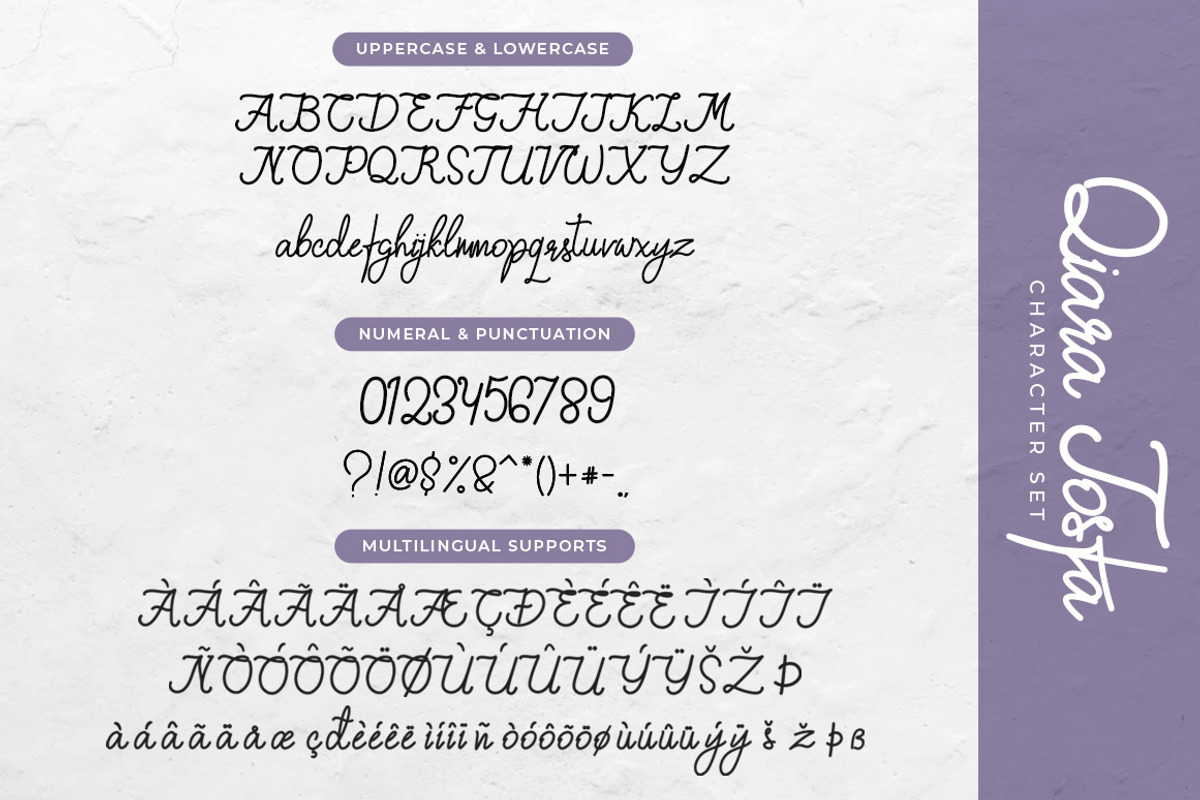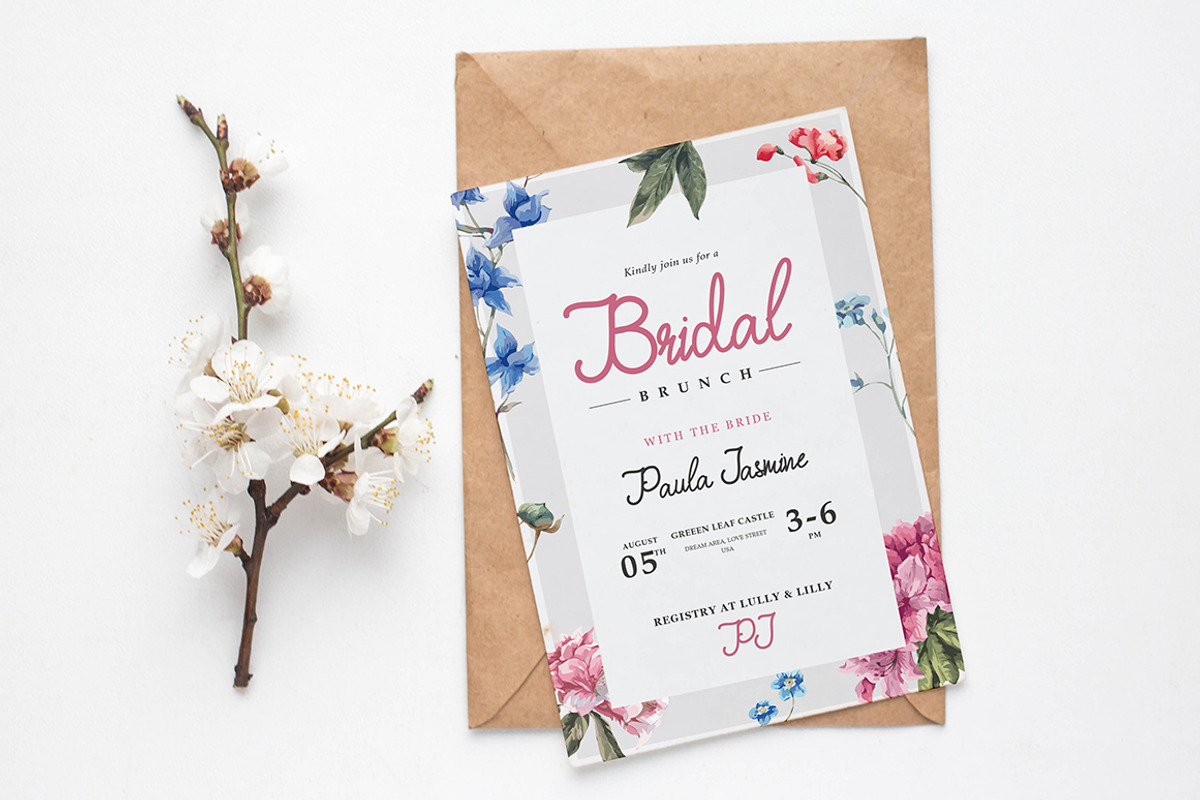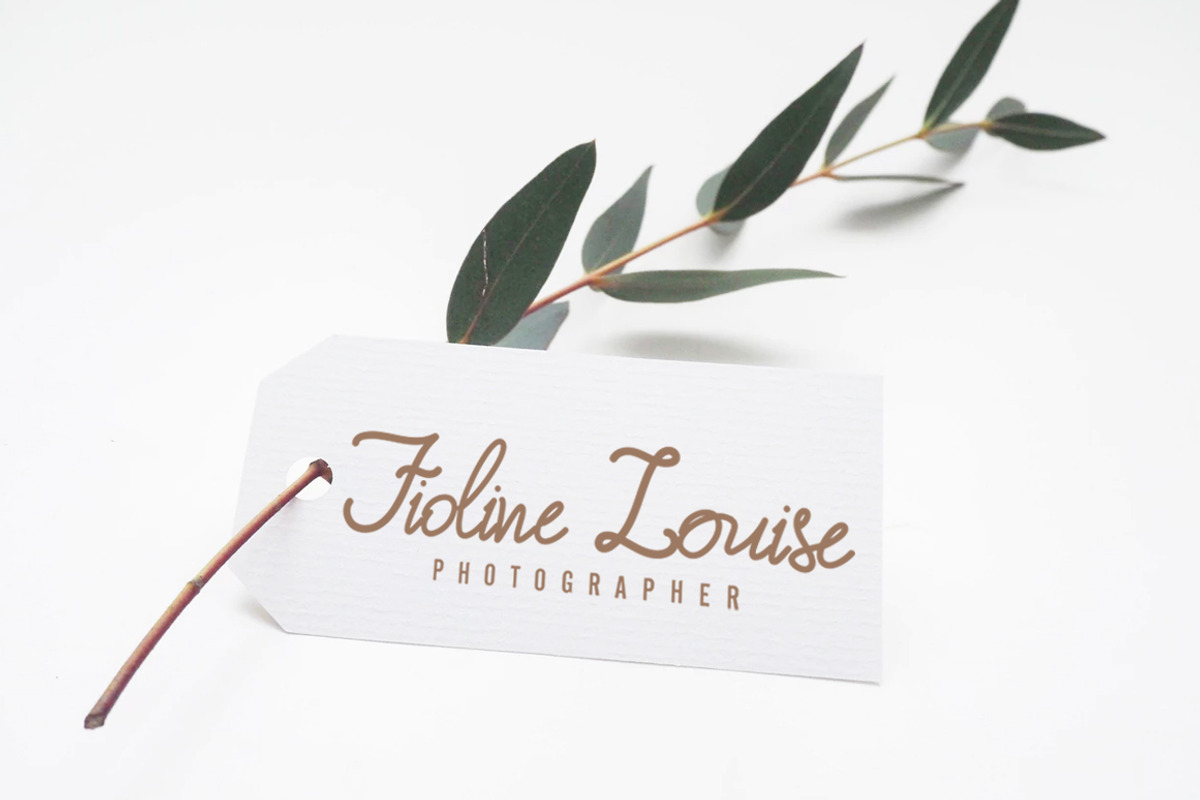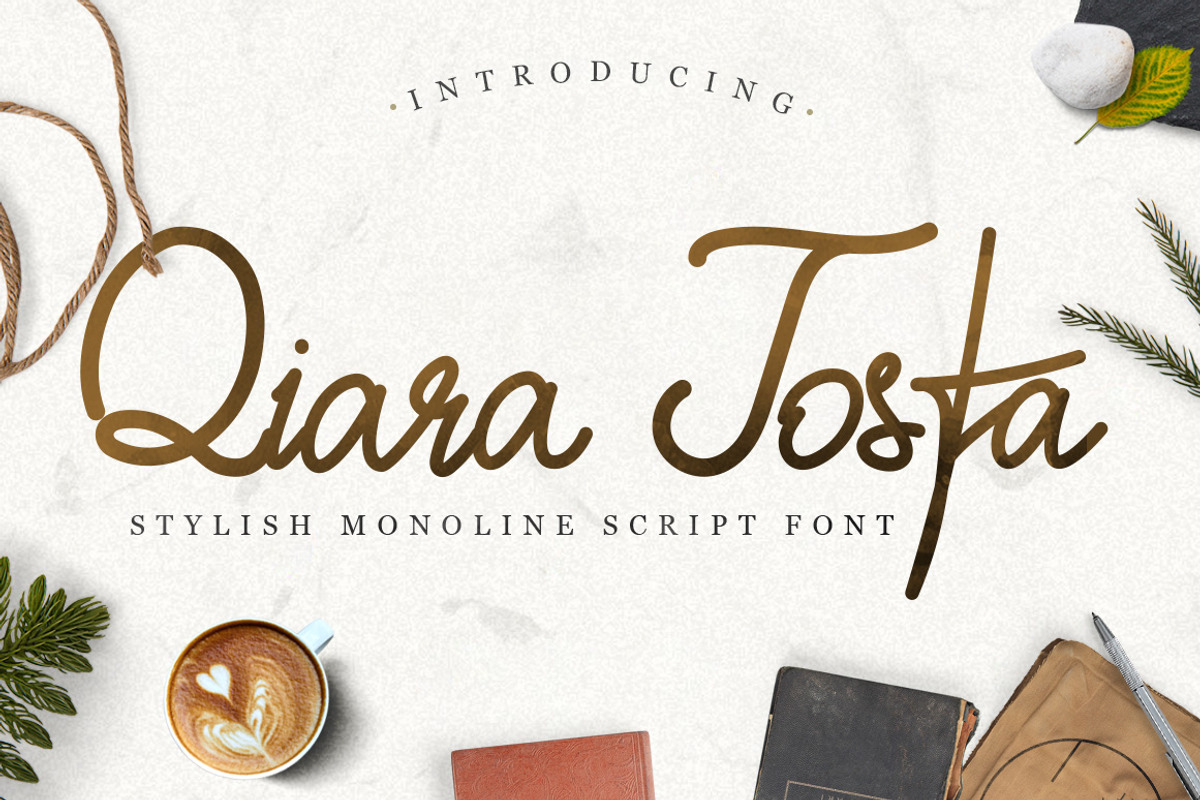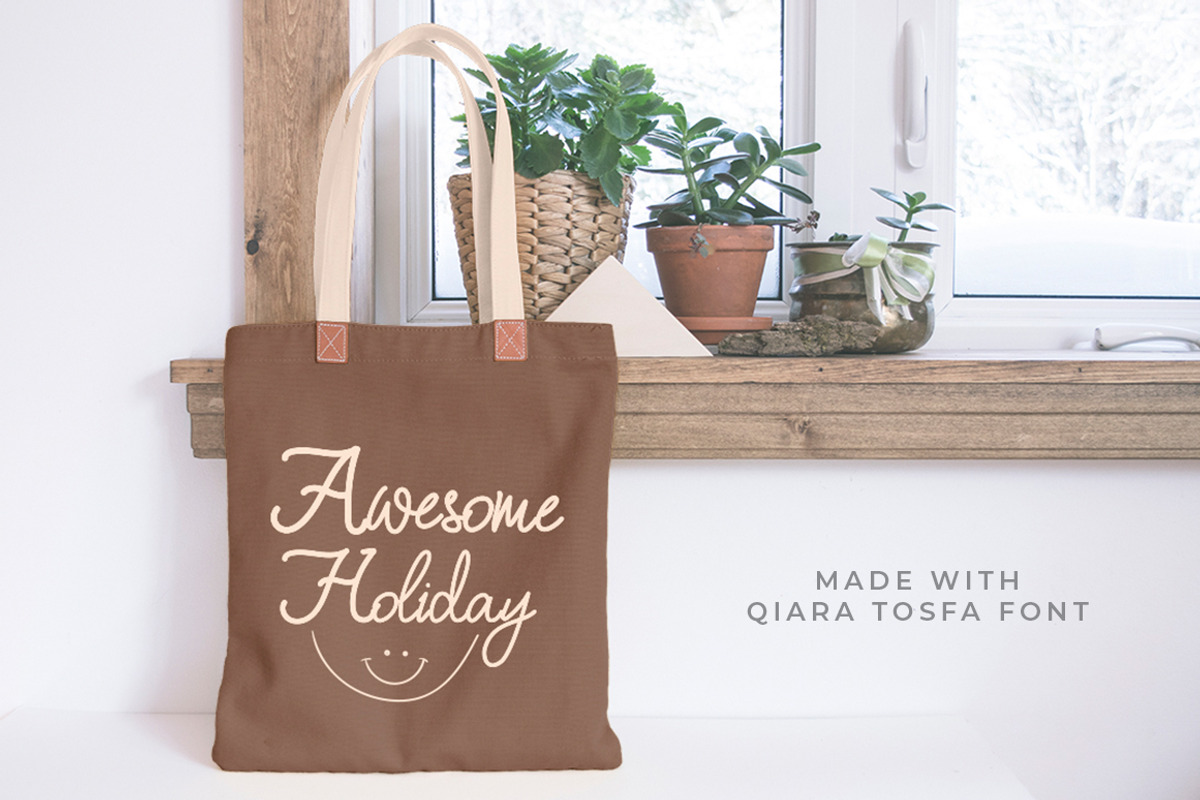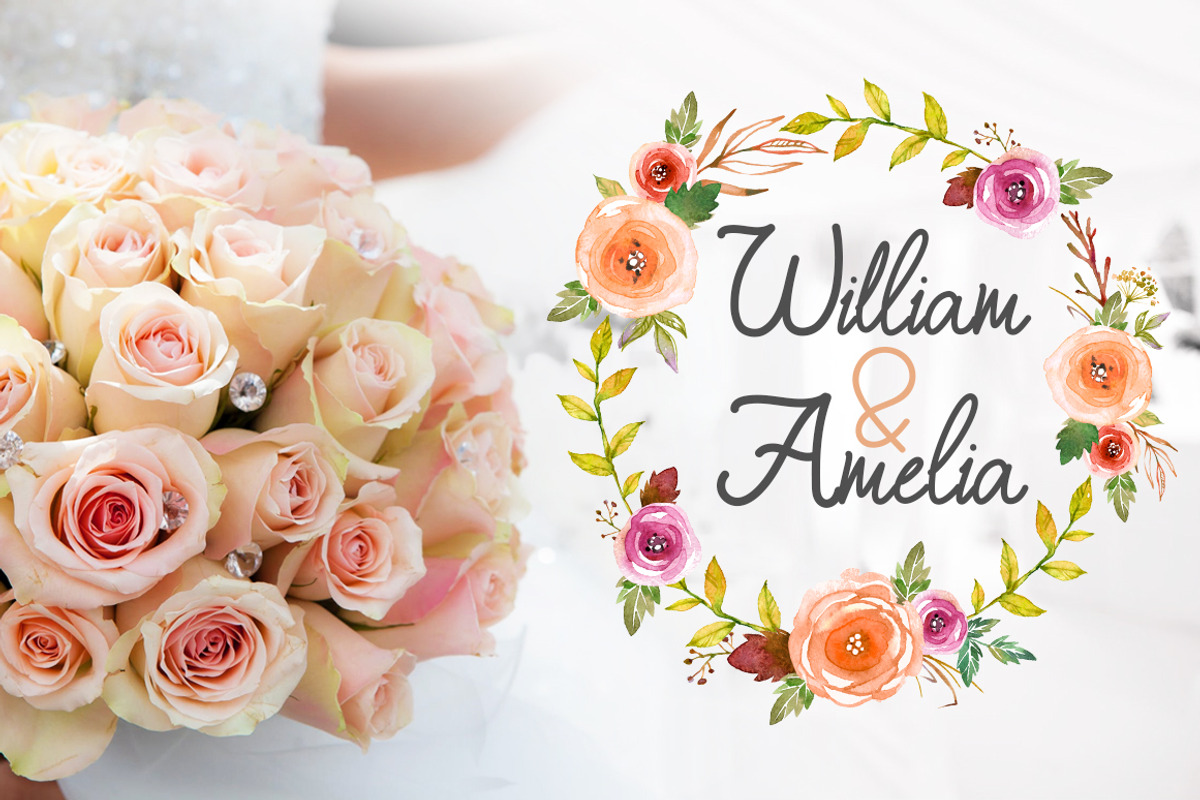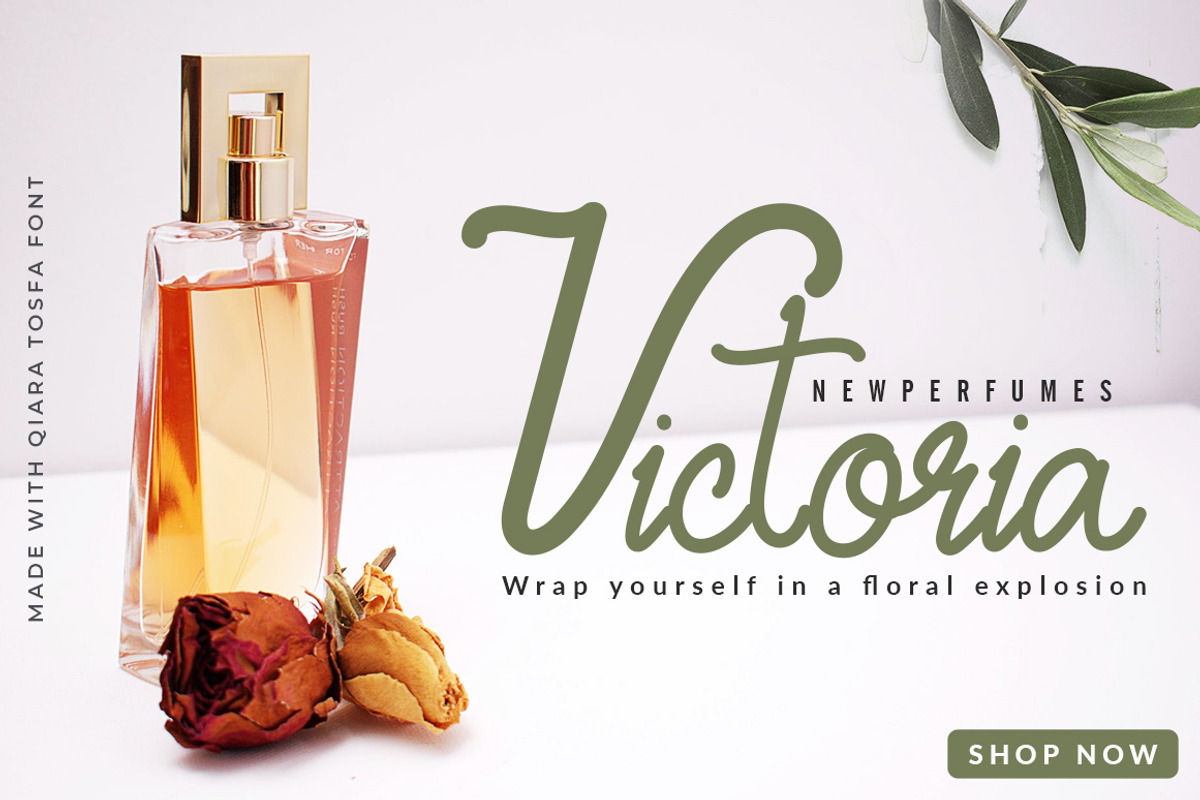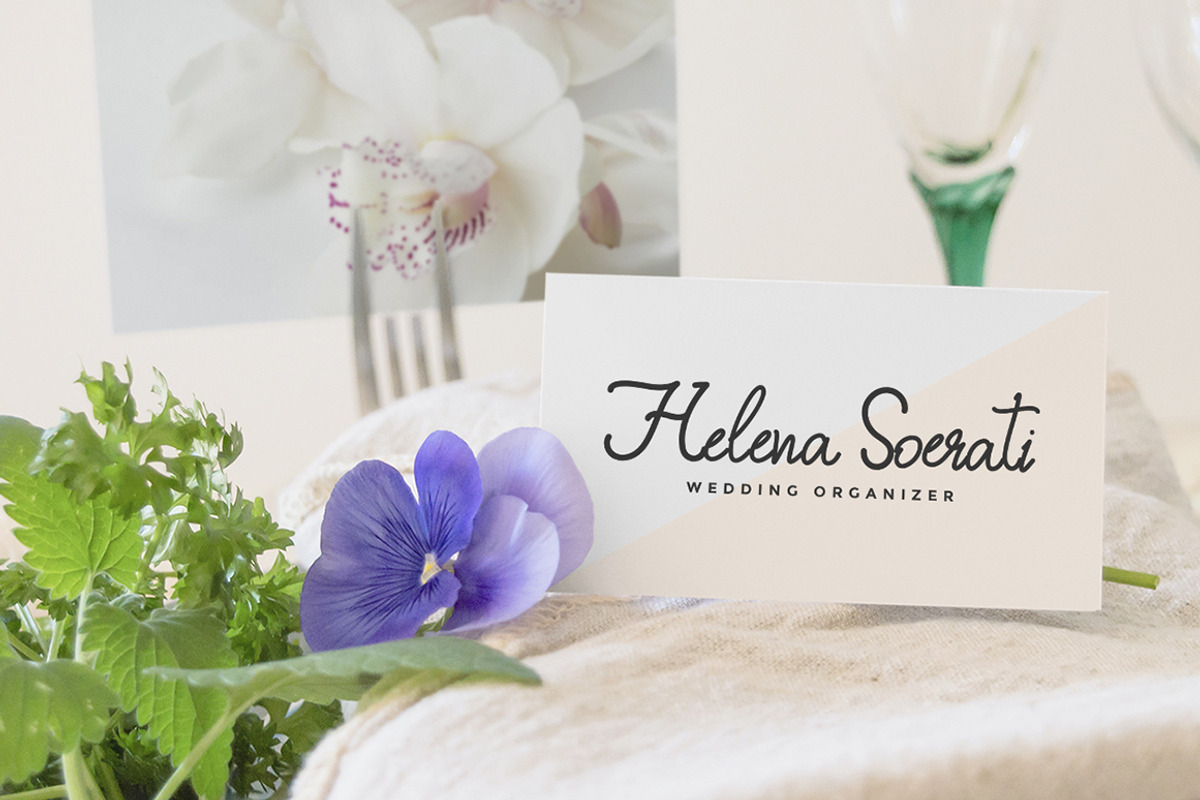
Qiara Tosfa Font
Introducing Qiara Tosfa – A Beautiful Handwritten Font. Made with naturally handwritten and modern style, it brings beautiful and modern typeface.
This font is suitable to use as a logo & branding, photography, watermark, social media posts, advertisements, invitation, product designs, label, stationery, wedding designs, product packaging or anything that need handwriting taste.
Ton of glyphs (include Uppercase, Lowercase, Numerals & Punctuations, Ligature, Alternate, and Swashes)
Fonts include Multilingual Support for: Afrikaans, Albanian, Danish, Dutch, Estonian, Finnish, German, Icelandic, Italian, Norwegian, Portugese, Spanisch, Swedish, Zulu
Qiara Tosfa Font by Kotak Kuning Studio fits naturally into Branding, posters, packaging, typography.